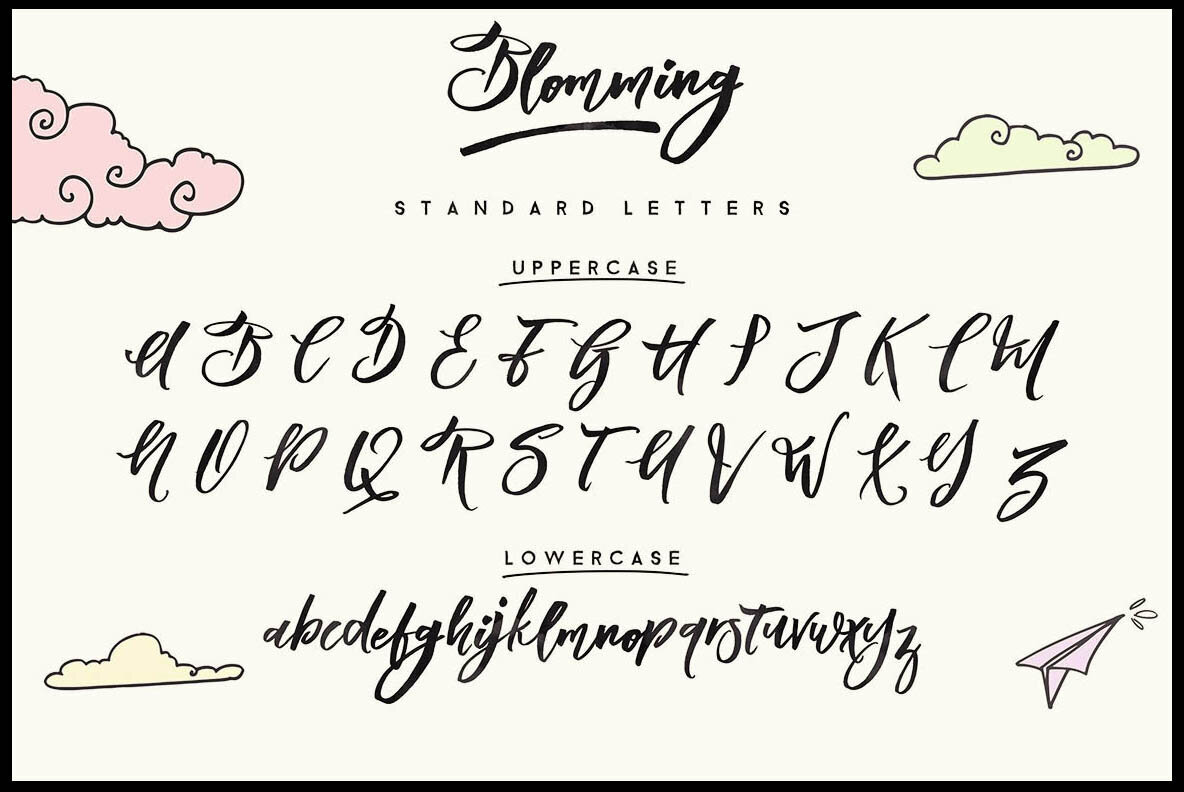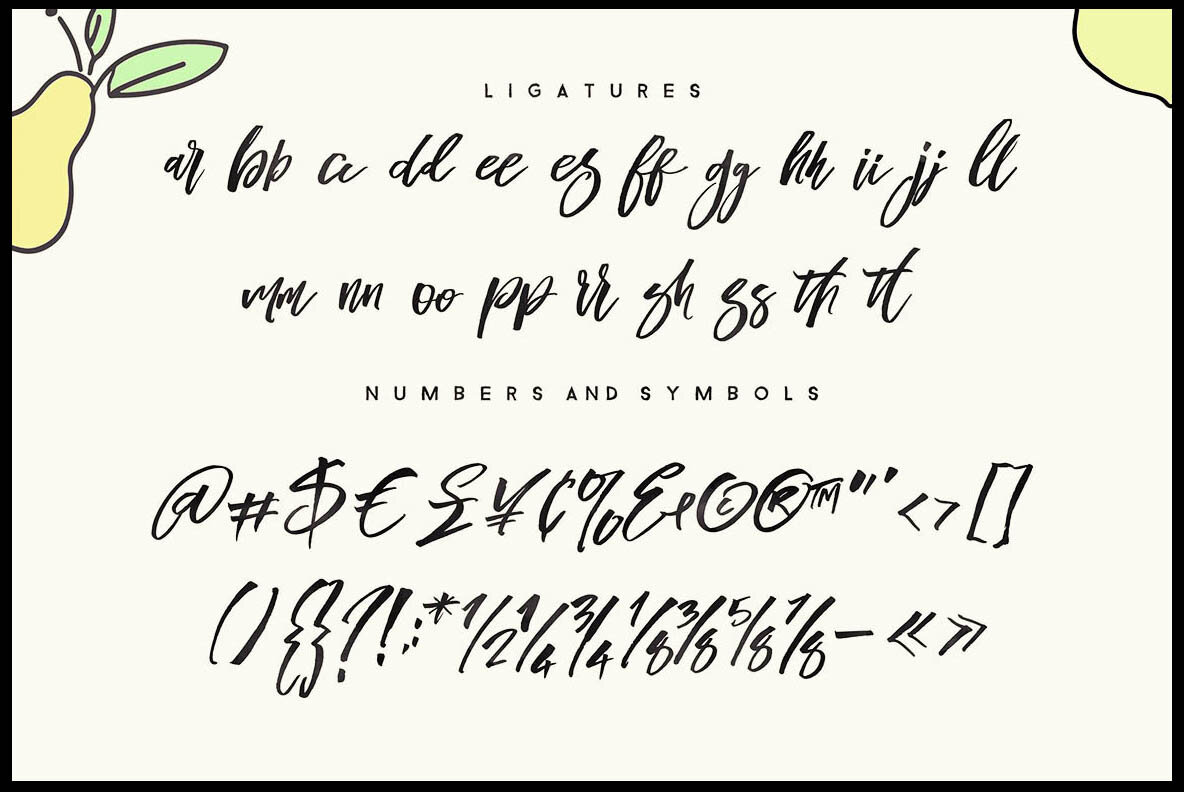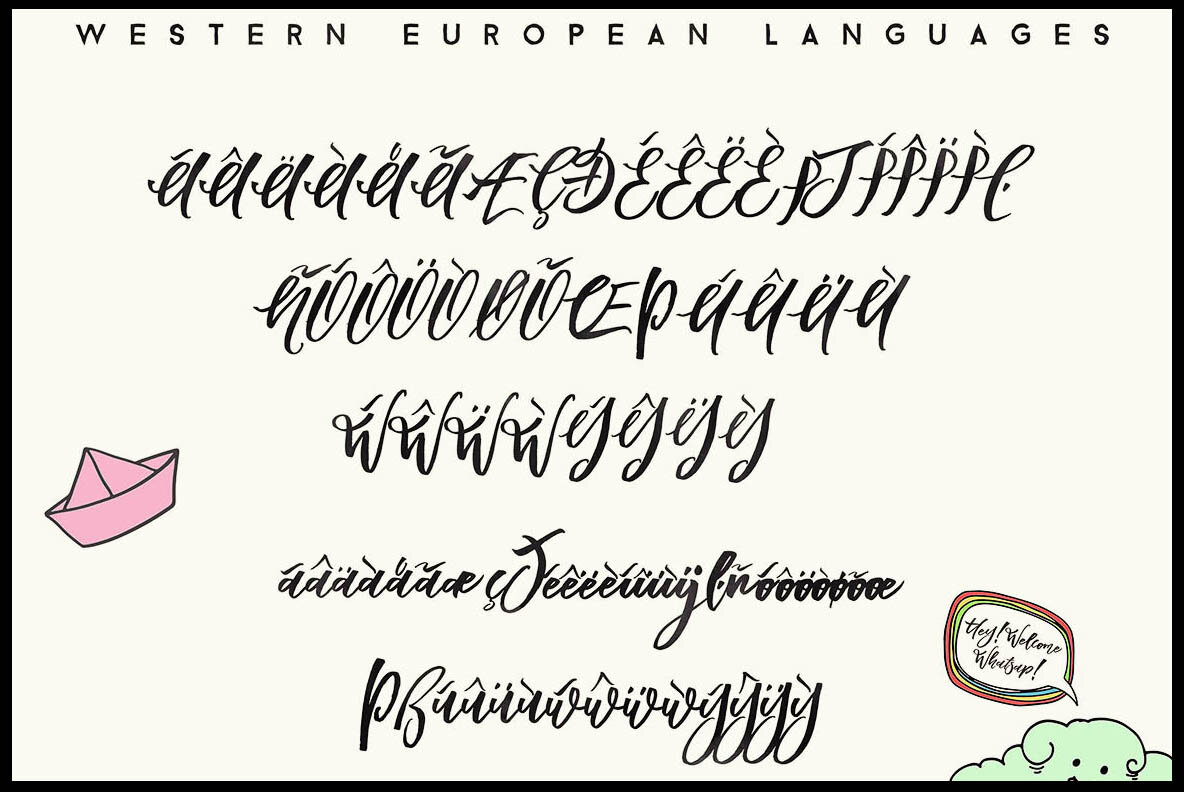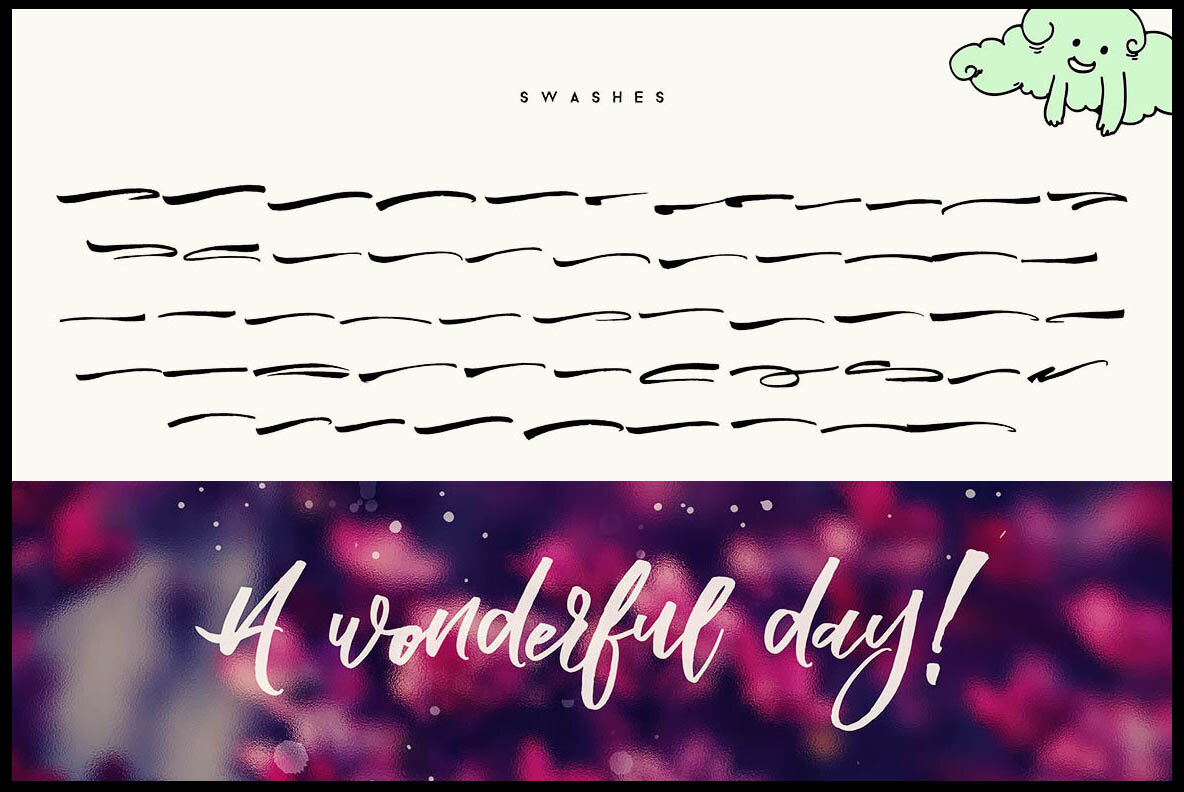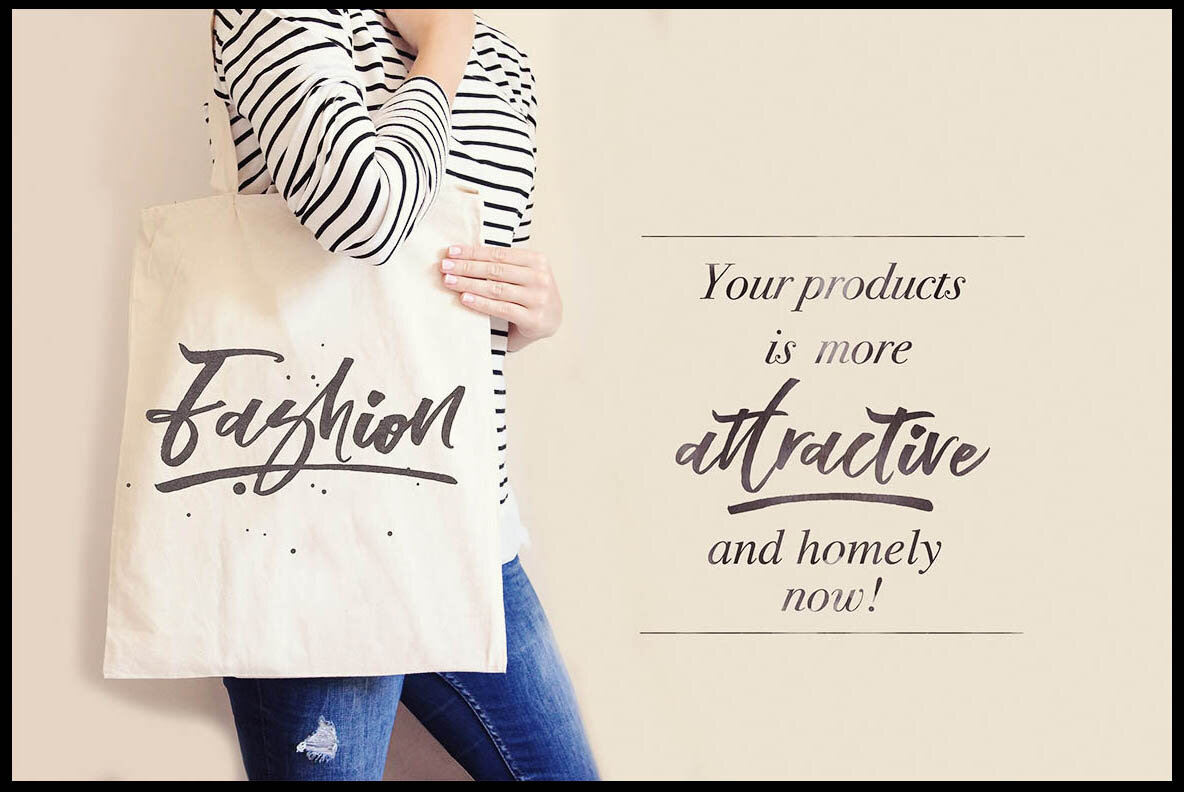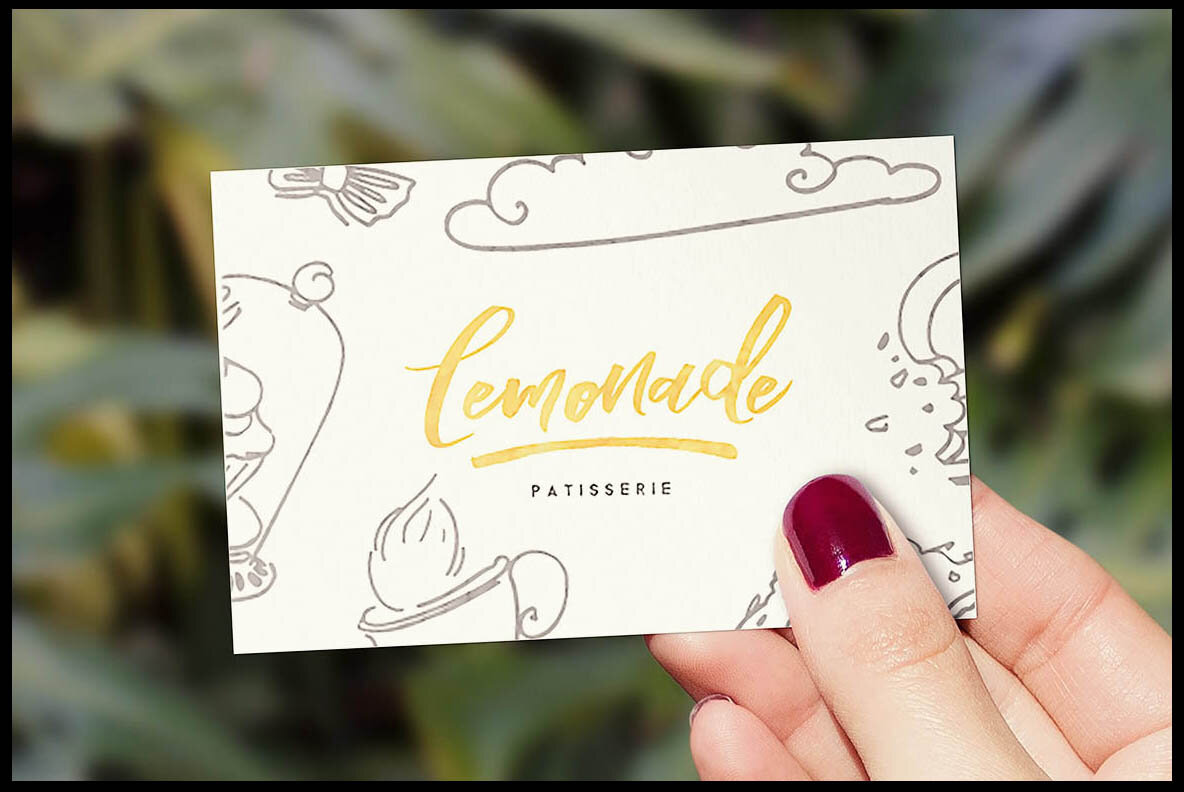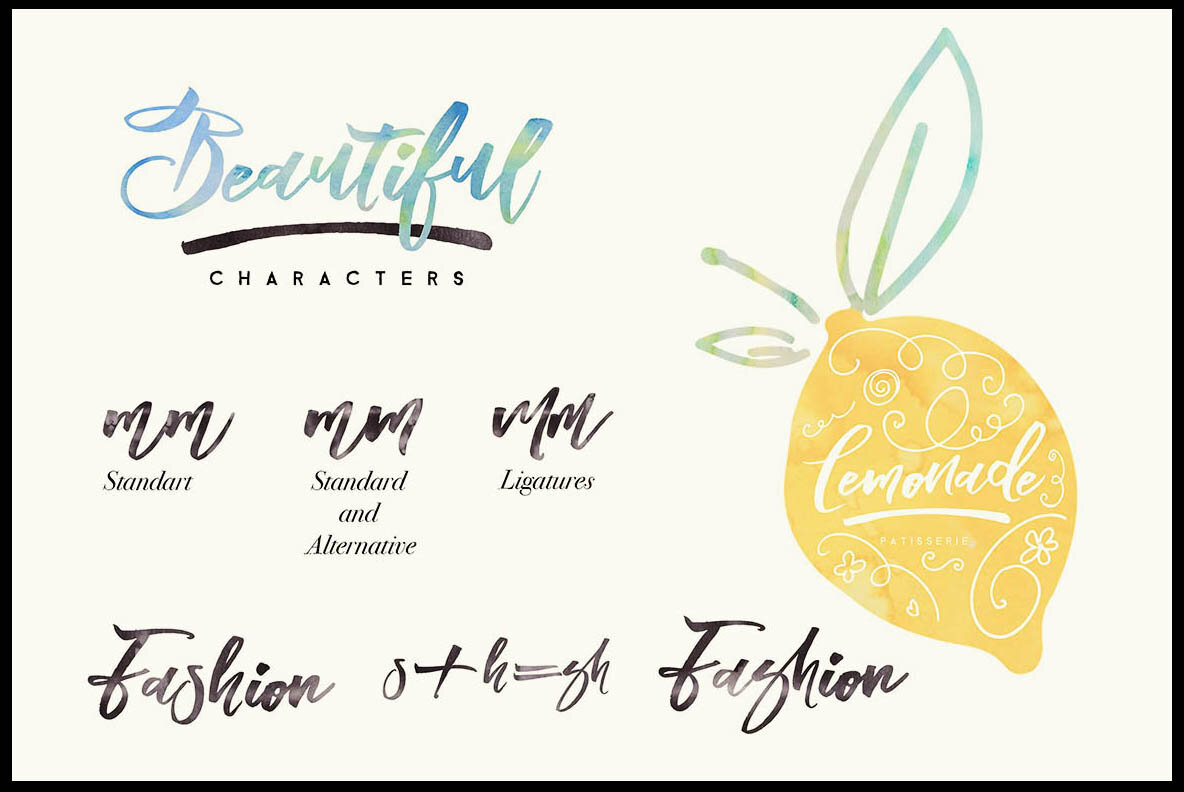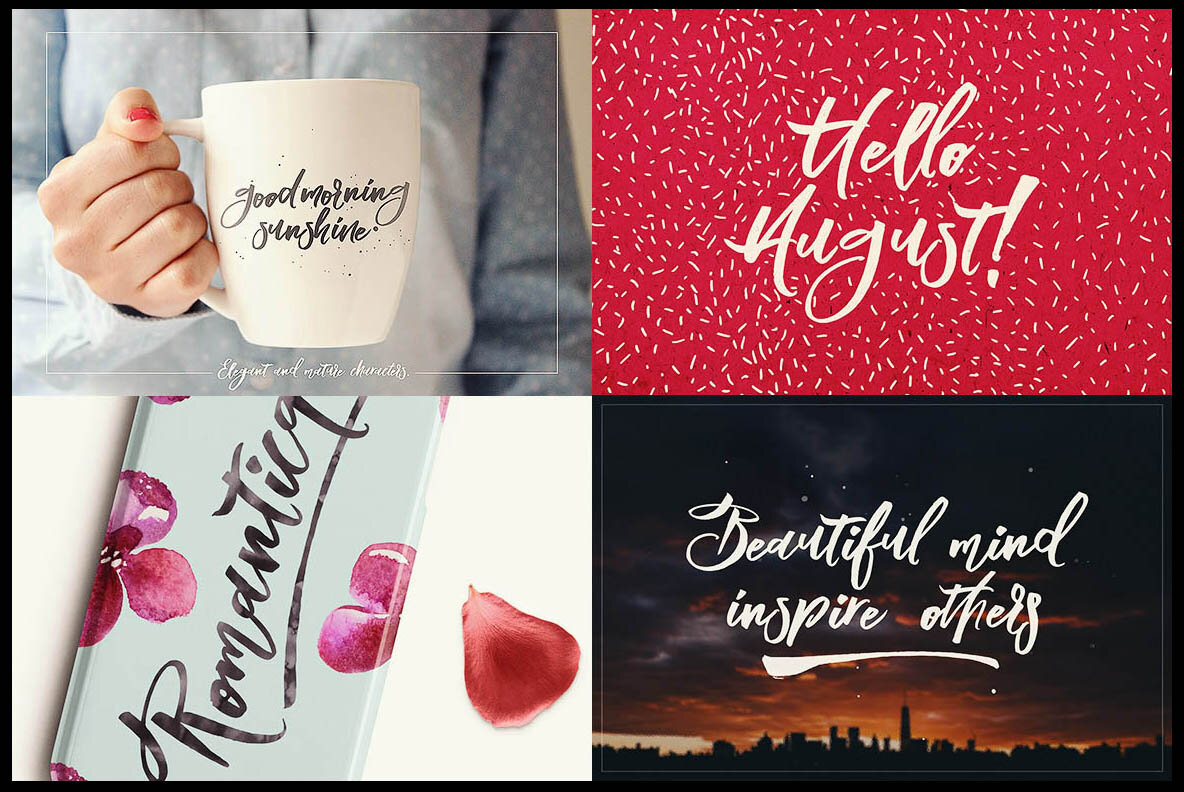
Blomming Font
Blomming is a captivating handwritten brush-style font ideal for adding a unique touch to your projects. Its artistic vibe makes it a perfect choice for grunge or creative designs, enhancing your work with an authentic handwritten feel.Blomming: A Handwritten Brush Style Font